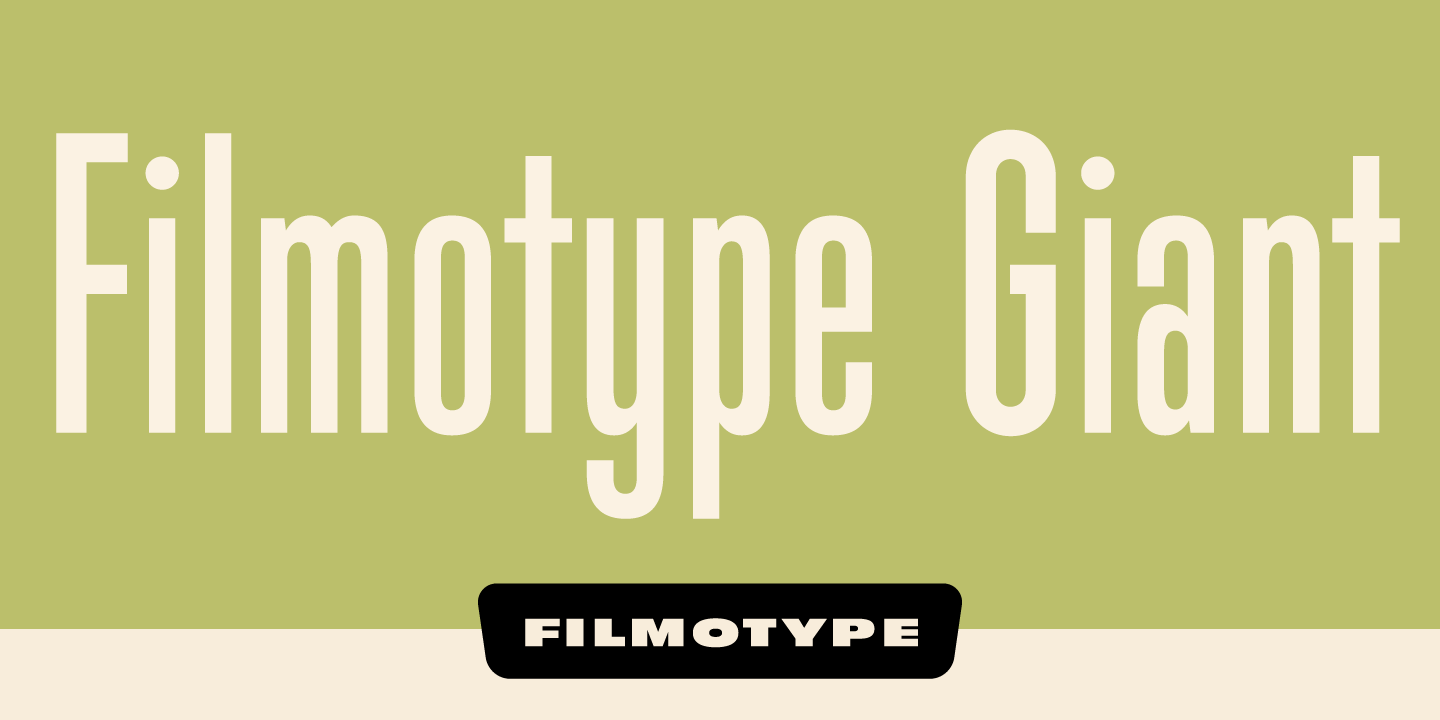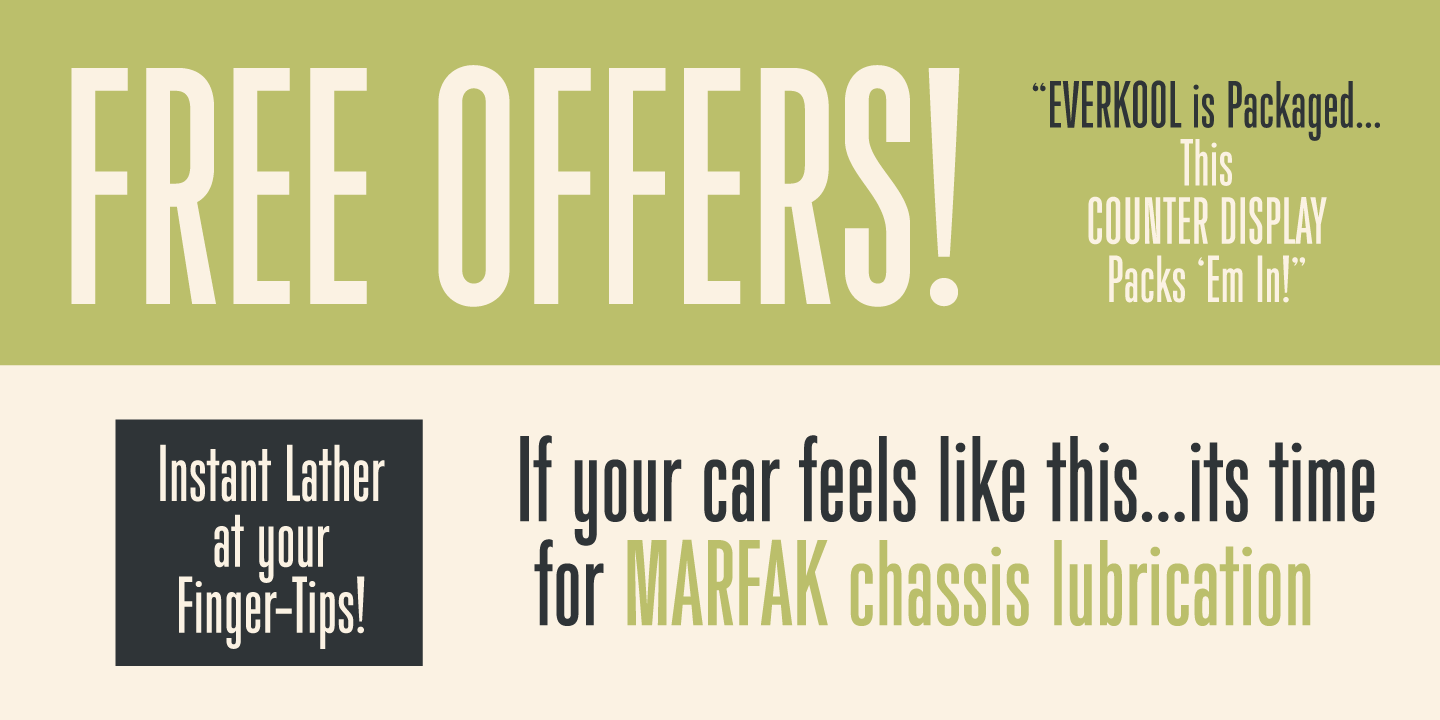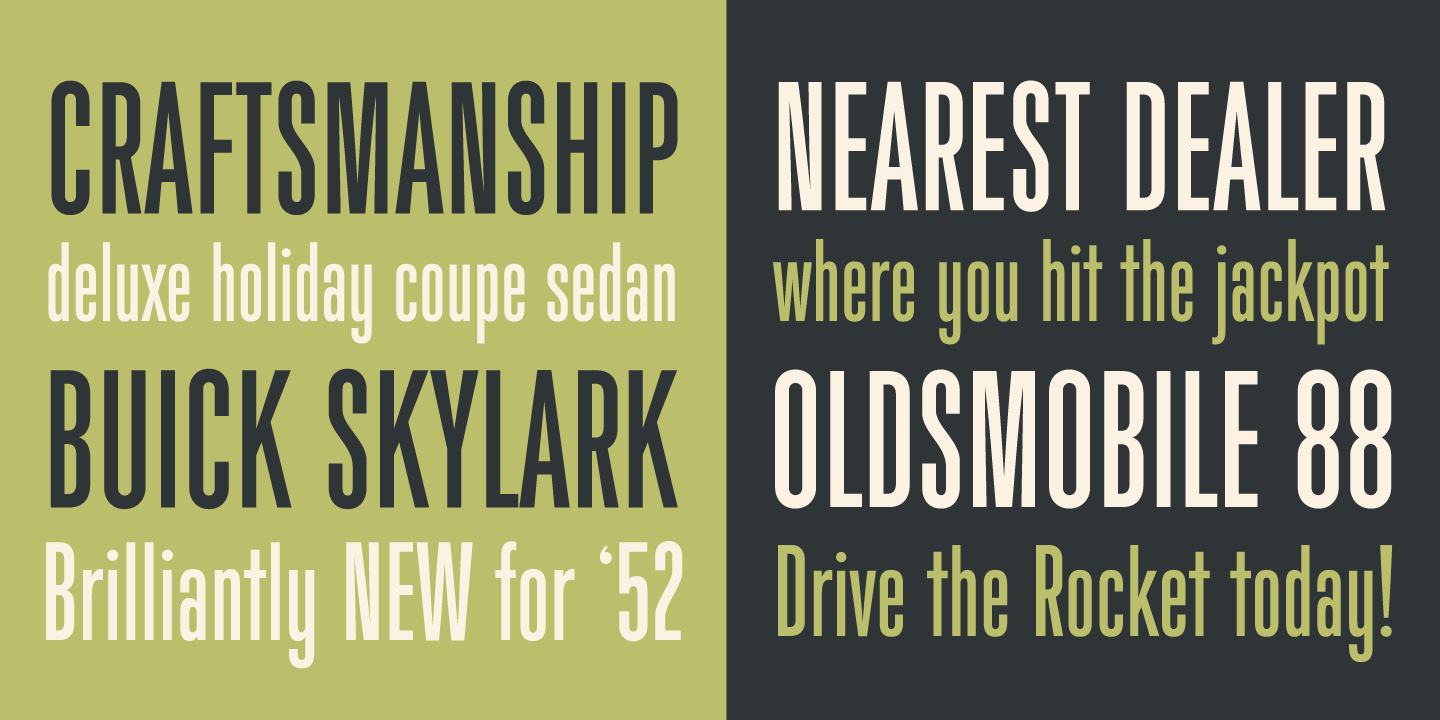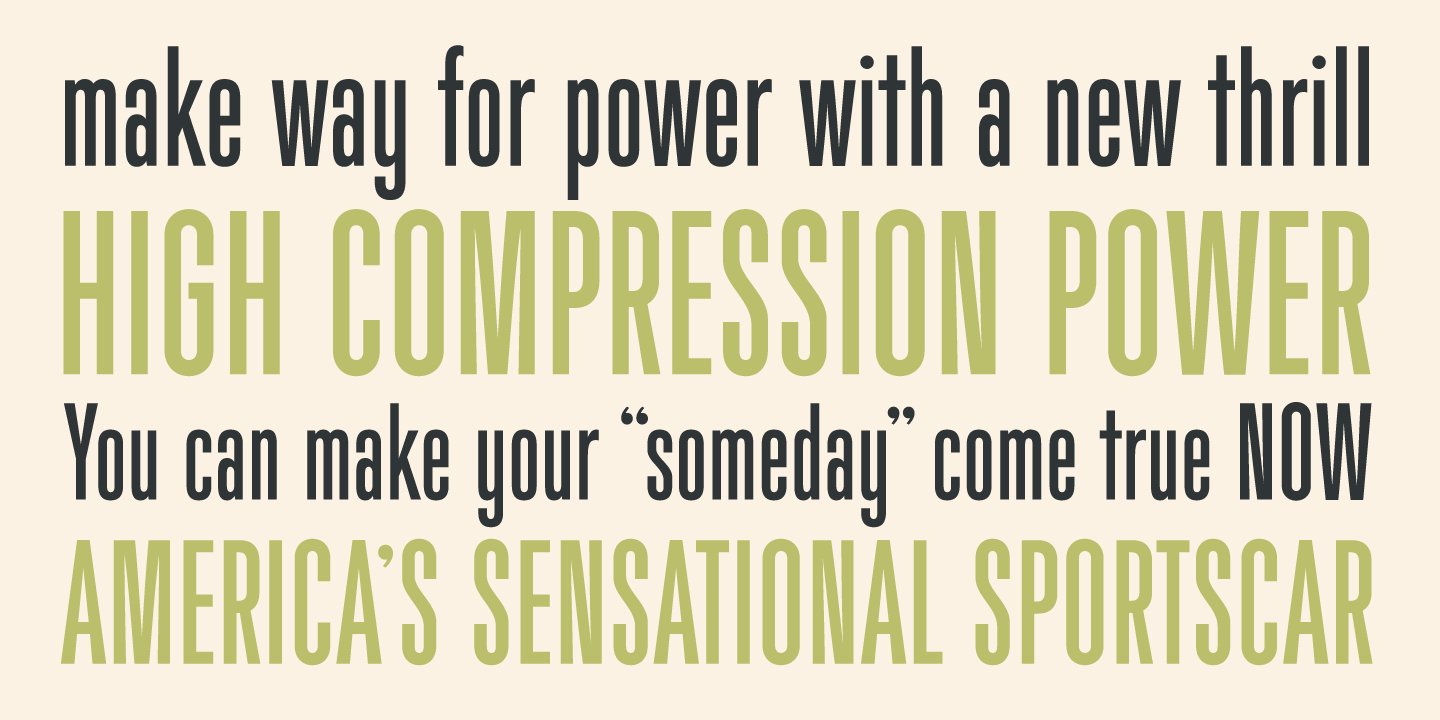
Filmotype Giant
Initially designed in the early-to-mid 1950s, Filmotype Giant is part of a larger group of condensed sans serifs offered by Filmotype at the demand of its customers based on their versatility, legibility, and timeless aesthetic.
Remastered and expanded with exacting precision from the original filmstrips, Filmotype Giant includes a full international character complement, automatic fractionals, ordinals, and a suite of alternates in dynamic OpenType format.